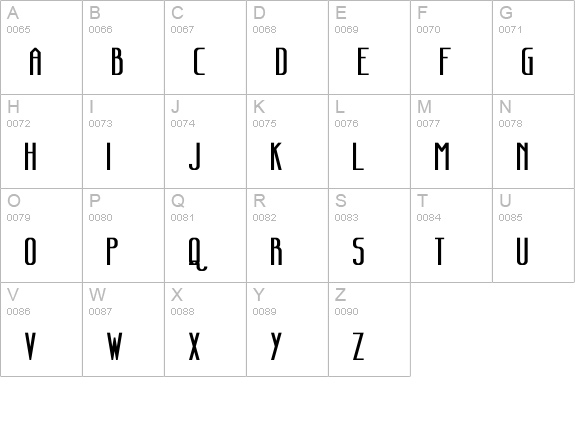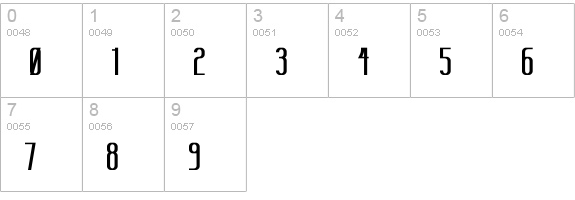
Sanity Bold is a strong, high-contrast variant in the Sanity typeface family \xE2\x80\x94 well suited to headlines, attention-grabbing titles, and strong calls-to-action.
Sanity Bold font is a visually striking and bold typeface that exudes confidence and presence. Its strong and commanding design makes it perfect for headlines, titles, and other attention-grabbing displays. With its thick and pronounced letterforms, Sanity Bold demands attention and leaves a lasting impression. Not only does Sanity Bold possess an impressive aesthetic appeal, but it also offers a high level of readability and legibility. Each letter is meticulously crafted to ensure clarity, making it ideal for both print and digital mediums. Whether used for editorial design, branding, or advertising, Sanity Bold will make your message stand out with its distinct and powerful presence. What makes Sanity Bold even more appealing is that it is freely available to download at FontsMarket.com. This means that you can enhance your design projects with this stunning font without any cost or restrictions. FontsMarket.com provides a user-friendly platform where you can easily access and download Sanity Bold, allowing you to bring your creative visions to life without any limitations. So, if you are looking for a font that combines boldness, readability, and the added benefit of being free, Sanity Bold is the perfect choice for you. Download it today from FontsMarket.com and elevate your designs with this exceptional typeface.